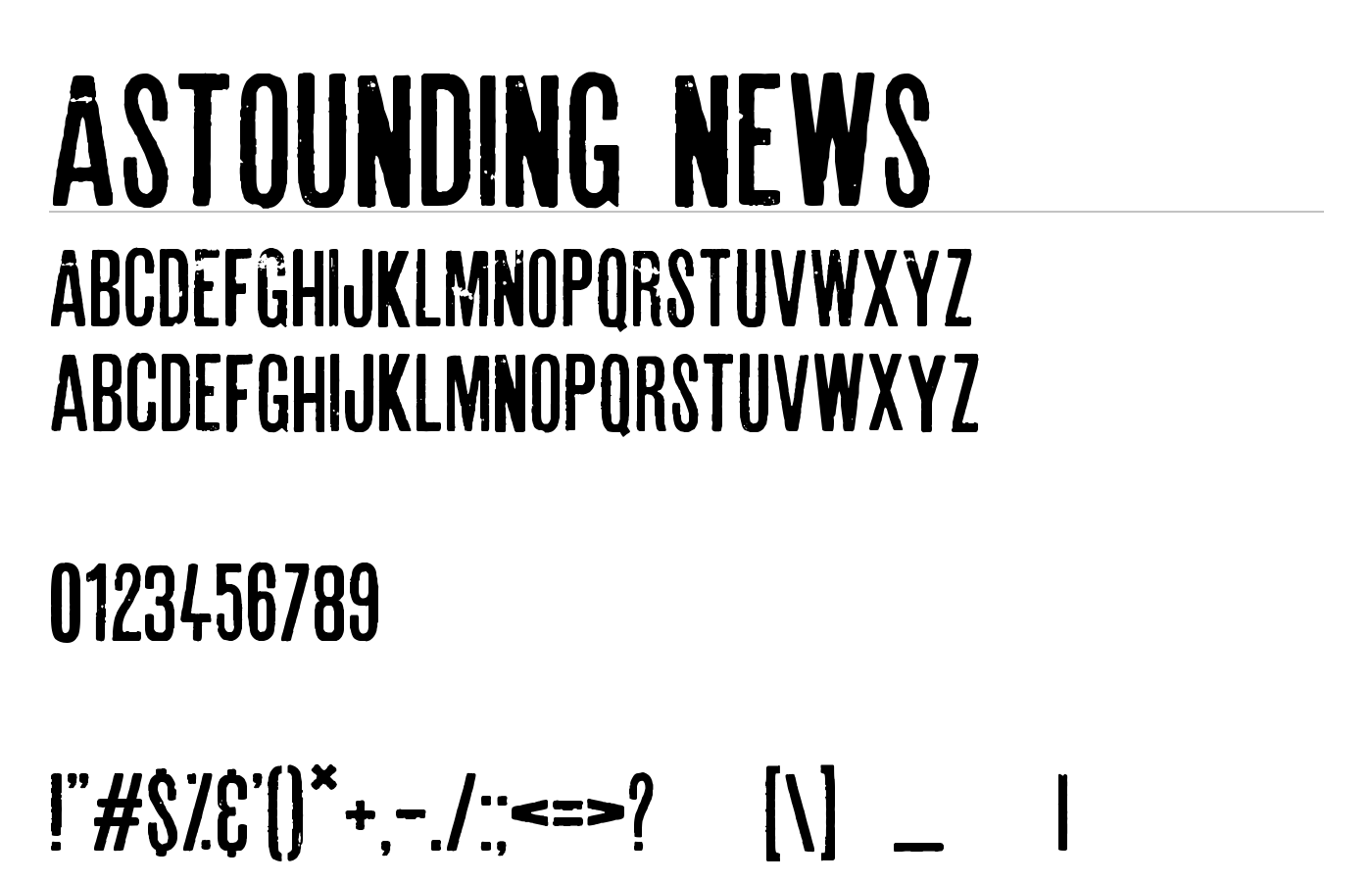
Astounding News is a bold, condensed sans serif font with a distressed, textured look that gives it a vintage, rugged personality. Its tall, narrow letterforms with subtle irregularities make it perfect for grabbing attention in headlines, posters, and branding that seek a striking, retro-industrial vibe. This font works best in display usage where its strong, dynamic style can shine without sacrificing readability.
Astounding news Font
About Astounding news Font